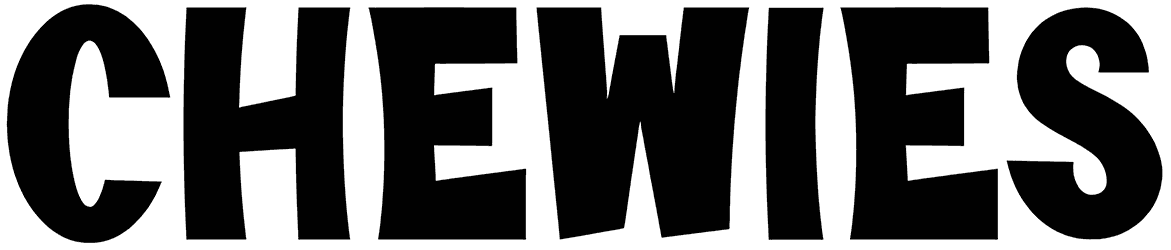
Chewies Font
One look at the dynamic letters of Chewies is enough to recognize it as a silly font that can make incredible things happen with its lively character and its cartoonish style. Rest assured that a happy font like this can be a huge help to your fun projects.
Pair this cartoon font with other cute visual elements in your design and see how great it would be for branding baby care products, food products, board games, and so many more items.